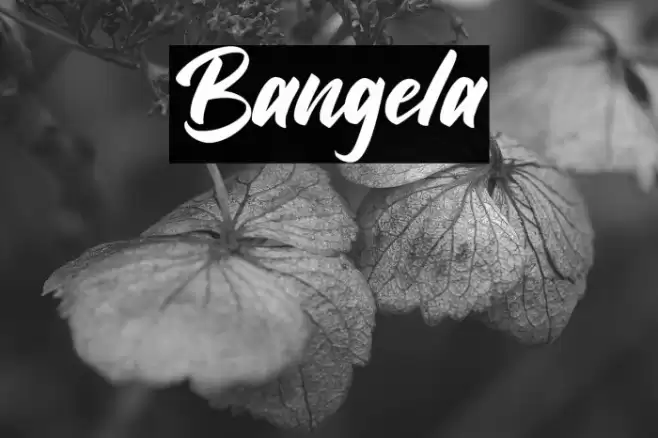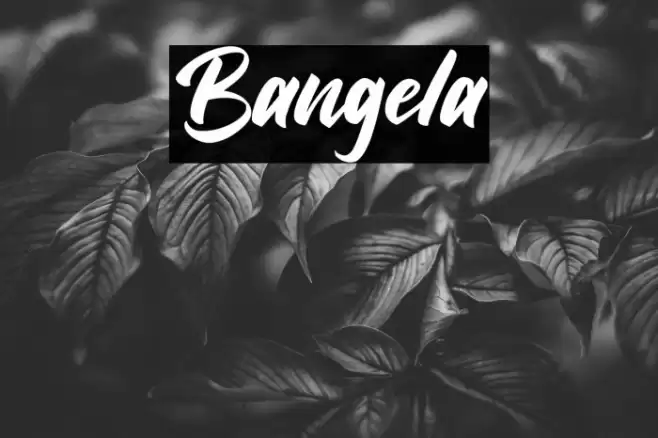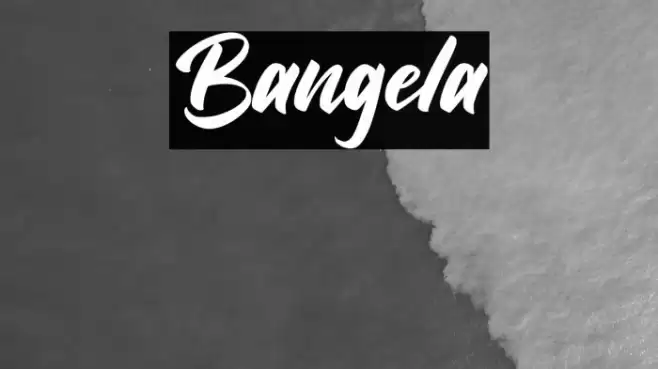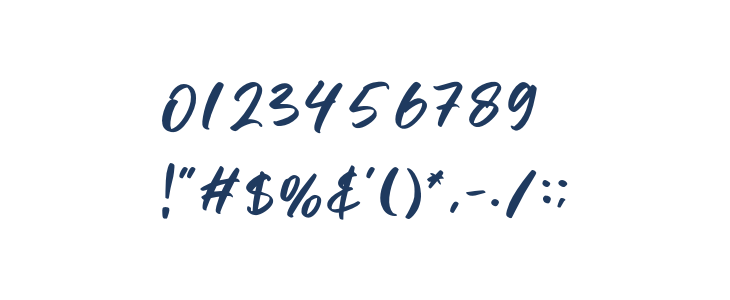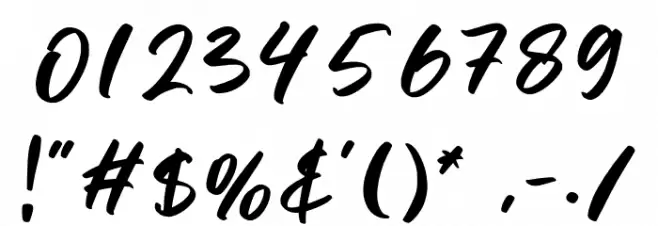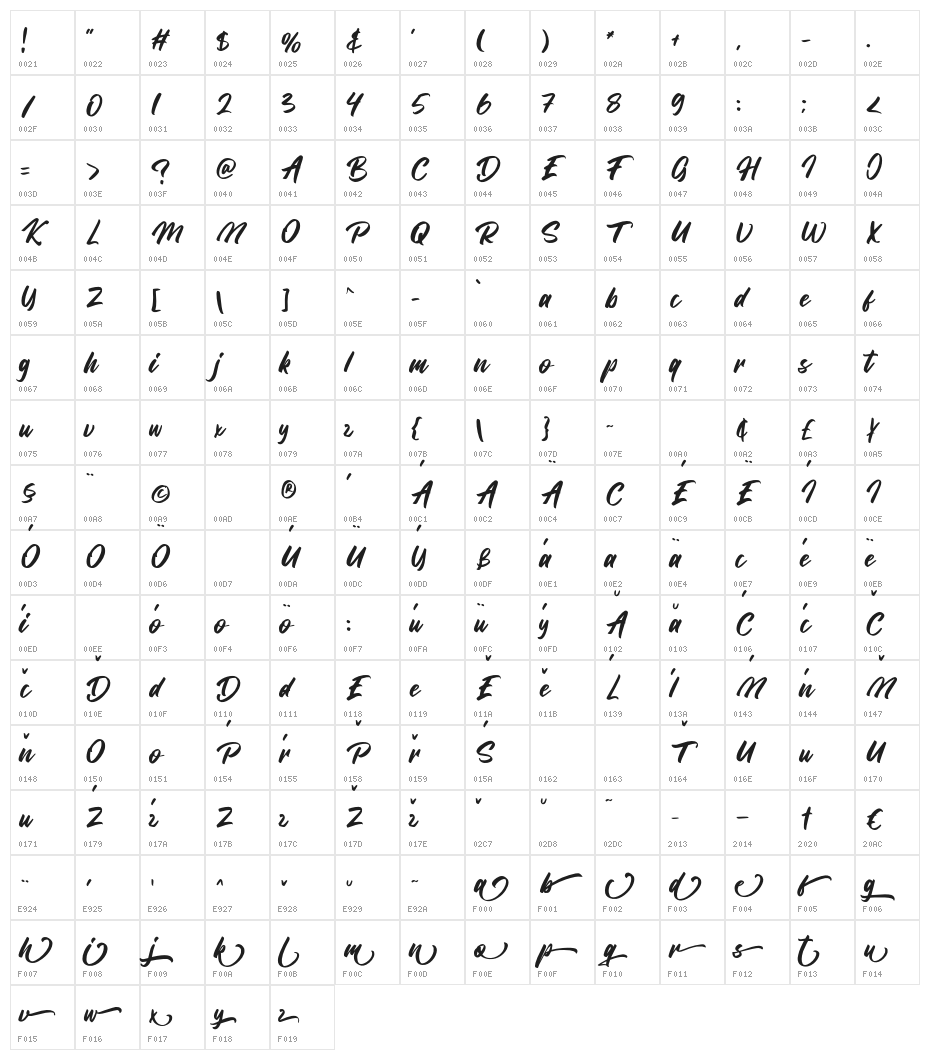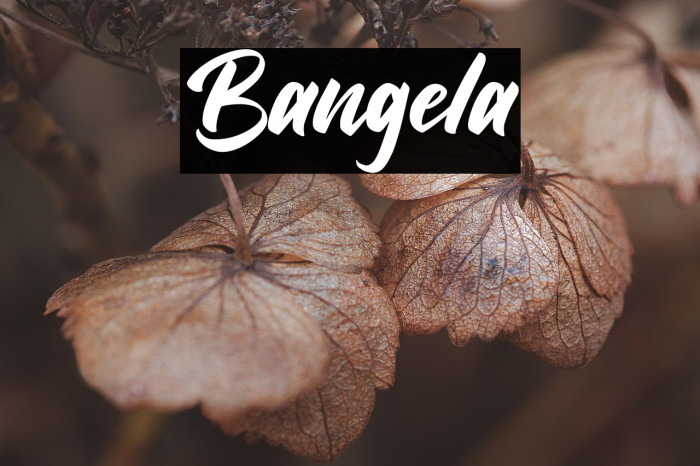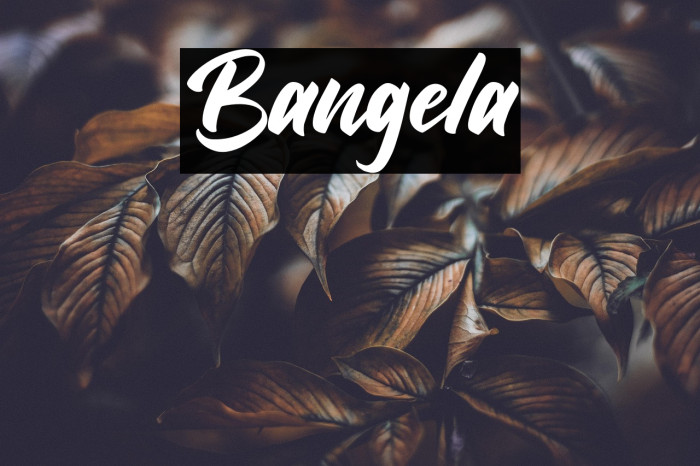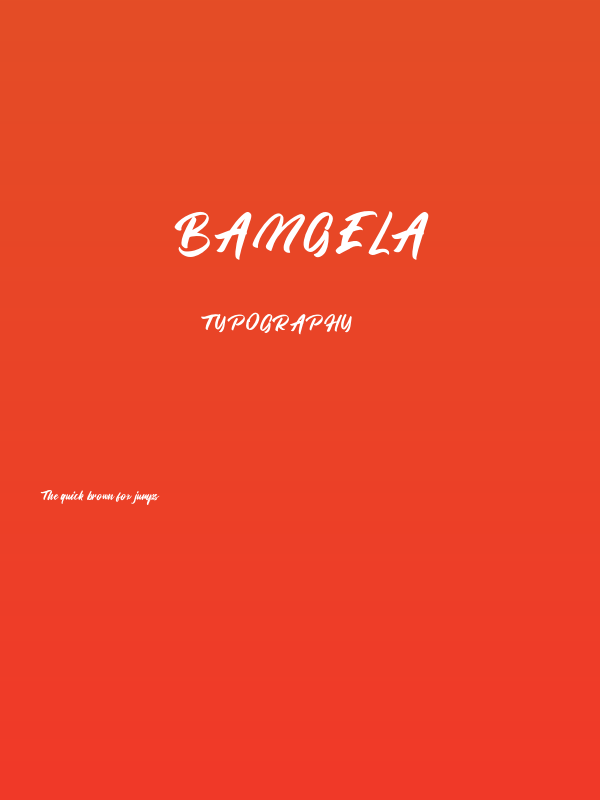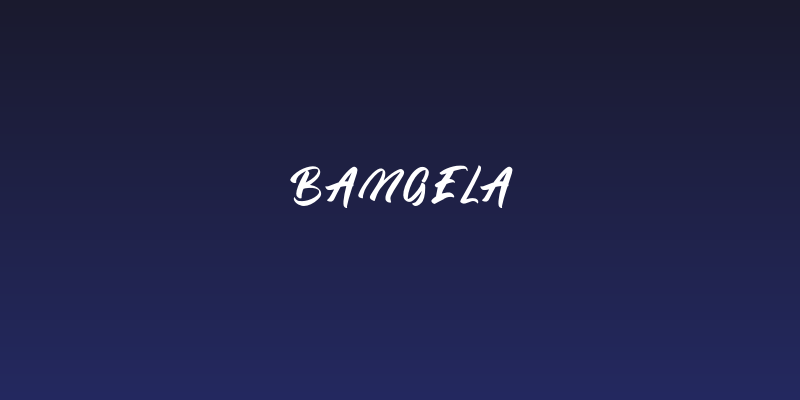
Bangela Font
Bangela Description
This font features a bold, cursive style with a dynamic and flowing appearance. The letters are interconnected, creating a sense of movement and elegance. The uppercase characters are slightly larger and more pronounced, while the lowercase letters maintain a consistent flow. Numbers and special characters are designed to match the overall aesthetic, with smooth curves and a cohesive look. The font's boldness makes it stand out, yet its cursive nature adds a touch of sophistication and flair.
A bold, cursive font with a dynamic and flowing style from Regular fonts.
- Proposed Projects: Ideal for branding, logos, invitations, and headlines that require a touch of elegance and boldness.
- Use Case: Logos, Headlines, Invitations